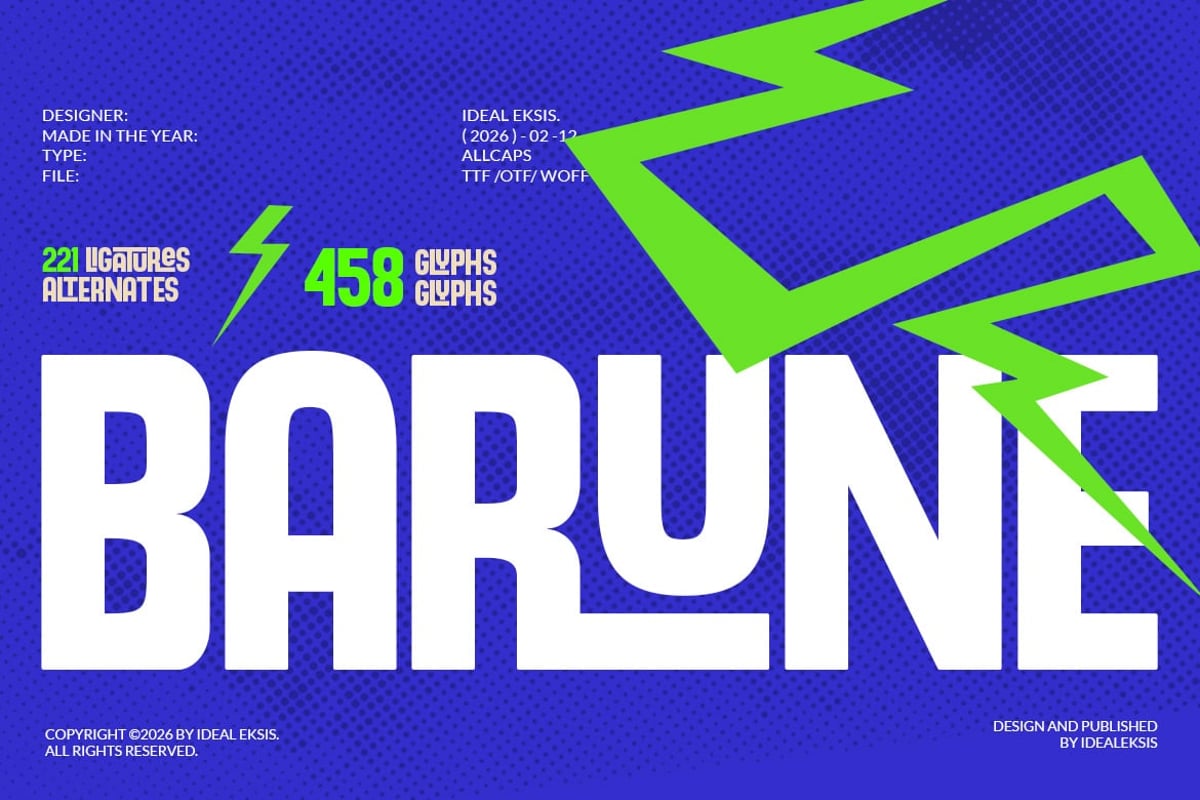
Barune - Sports Font
Barune delivers massive impact with its ultra-bold weight and tight letter spacing for high-performance designs.
This heavy display typeface commands attention with its powerful presence, making it the perfect choice for brands that need to make a bold statement. The condensed character spacing creates maximum visual impact while maintaining excellent readability.
- Uppercase (All Caps)
- Alternate characters
- Ligatures
- Multilingual support
- Numerals
- Punctuation
Perfect For:
- Racing team logos
- Automotive branding
- Motorsport events
- Gaming & esports
- Sports apparel design
- YouTube & streaming thumbnails
- Tech & performance branding
- Posters & promotional graphics